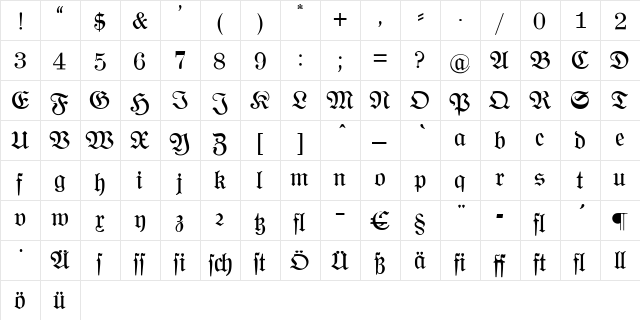
NeueFraktur Regular
Design Context for NeueFraktur Typeface
NeueFraktur channels the dramatic heritage of Fraktur and Gothic scripts, bringing a sense of historical gravitas to any design.
A natural fit for music packaging, gothic editorial design, and any project that needs historical weight.
Font Pairing: Pair with a clean neutral sans-serif for body copy to let NeueFraktur's character lead without overwhelming the composition.
Pro Tip: Reserve NeueFraktur for display and logo use — pair it with a clean sans-serif for body copy to prevent the composition from feeling oppressive.